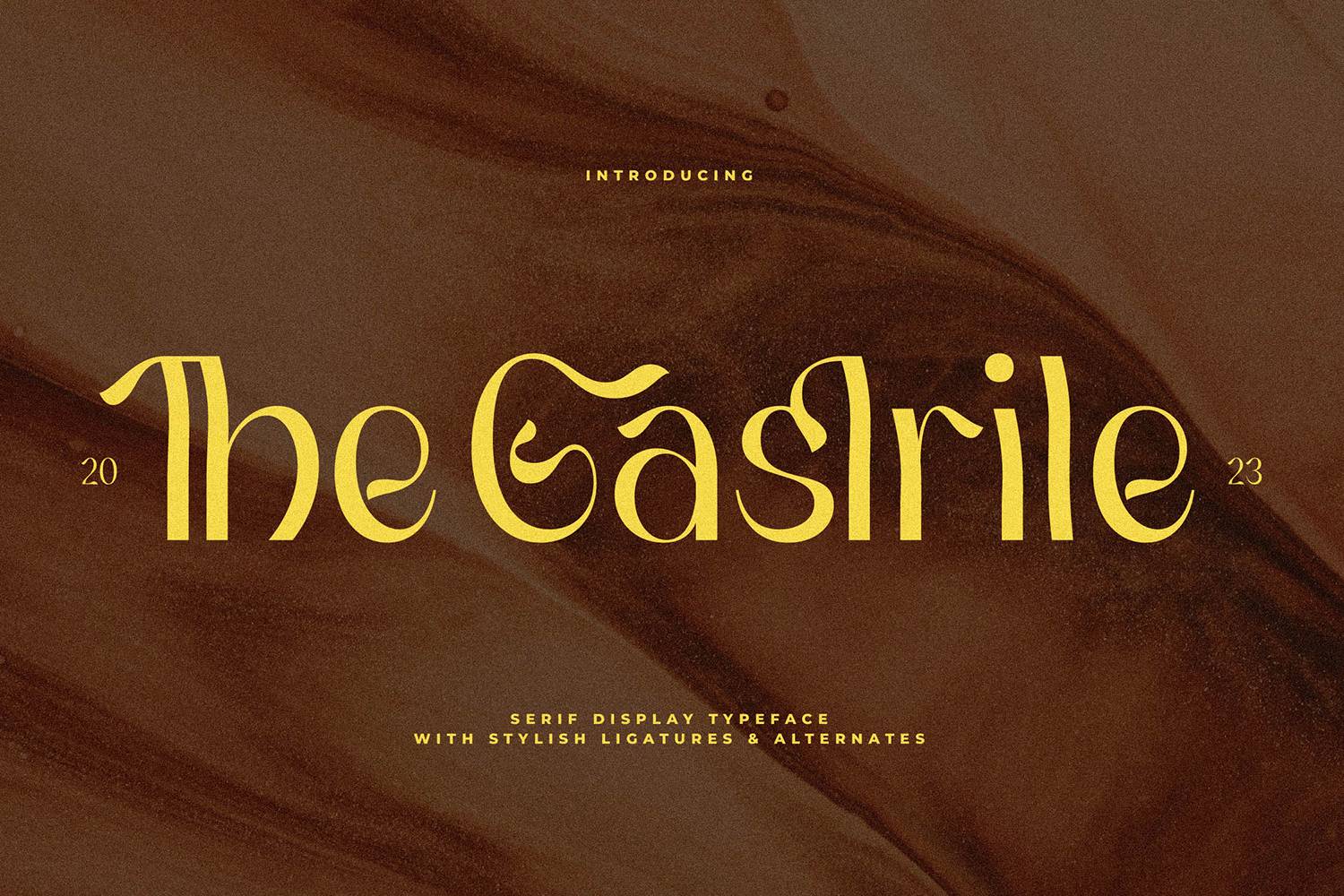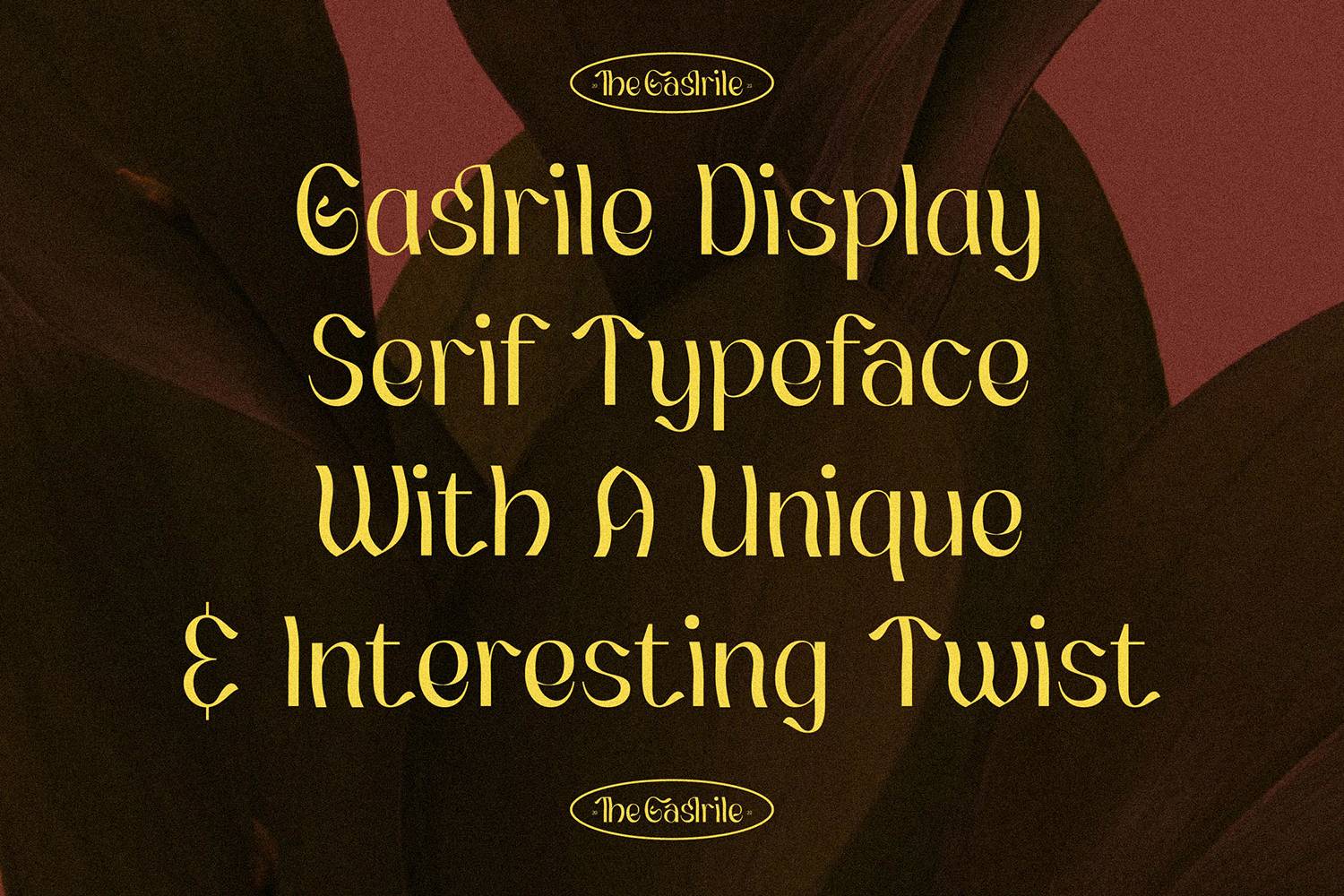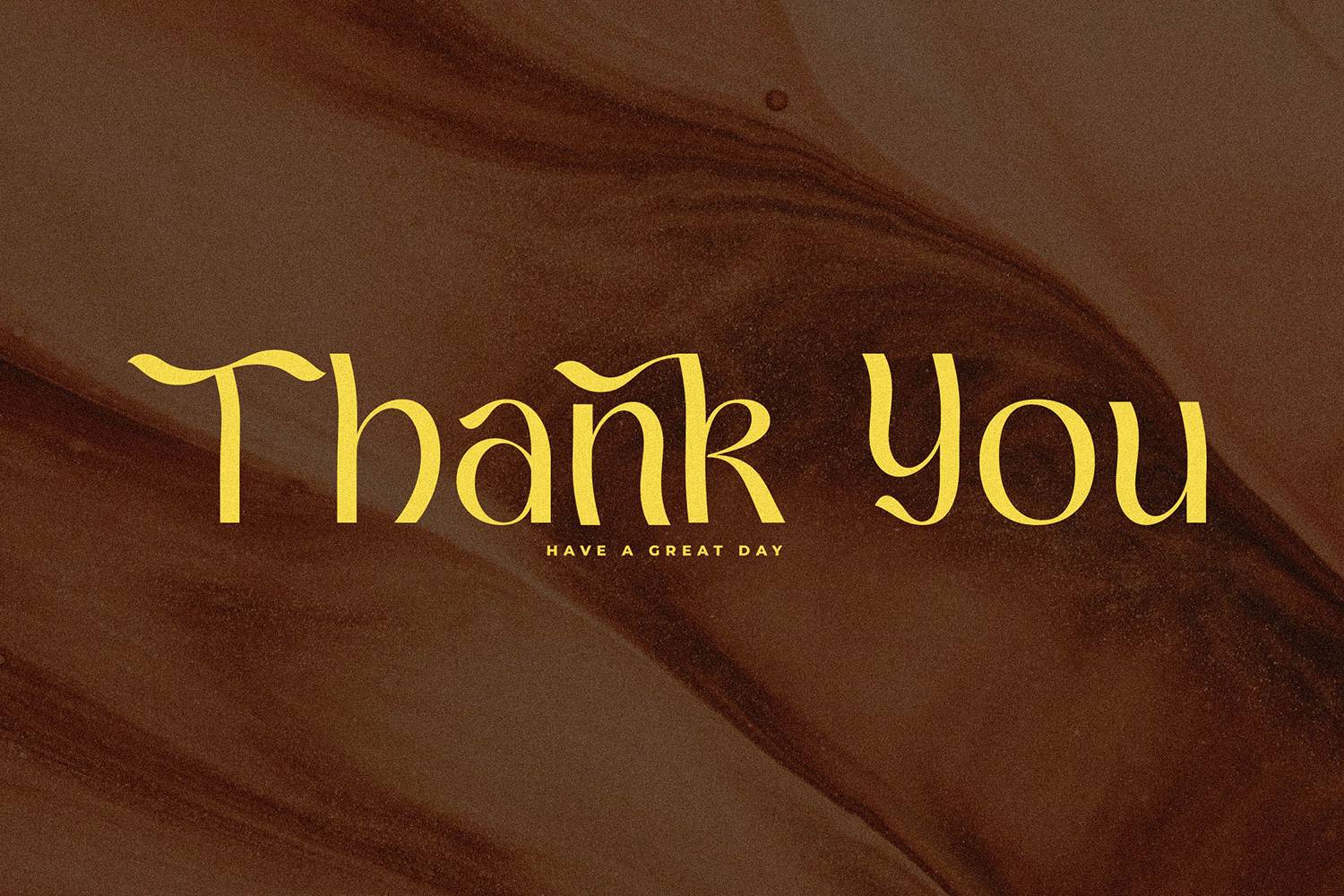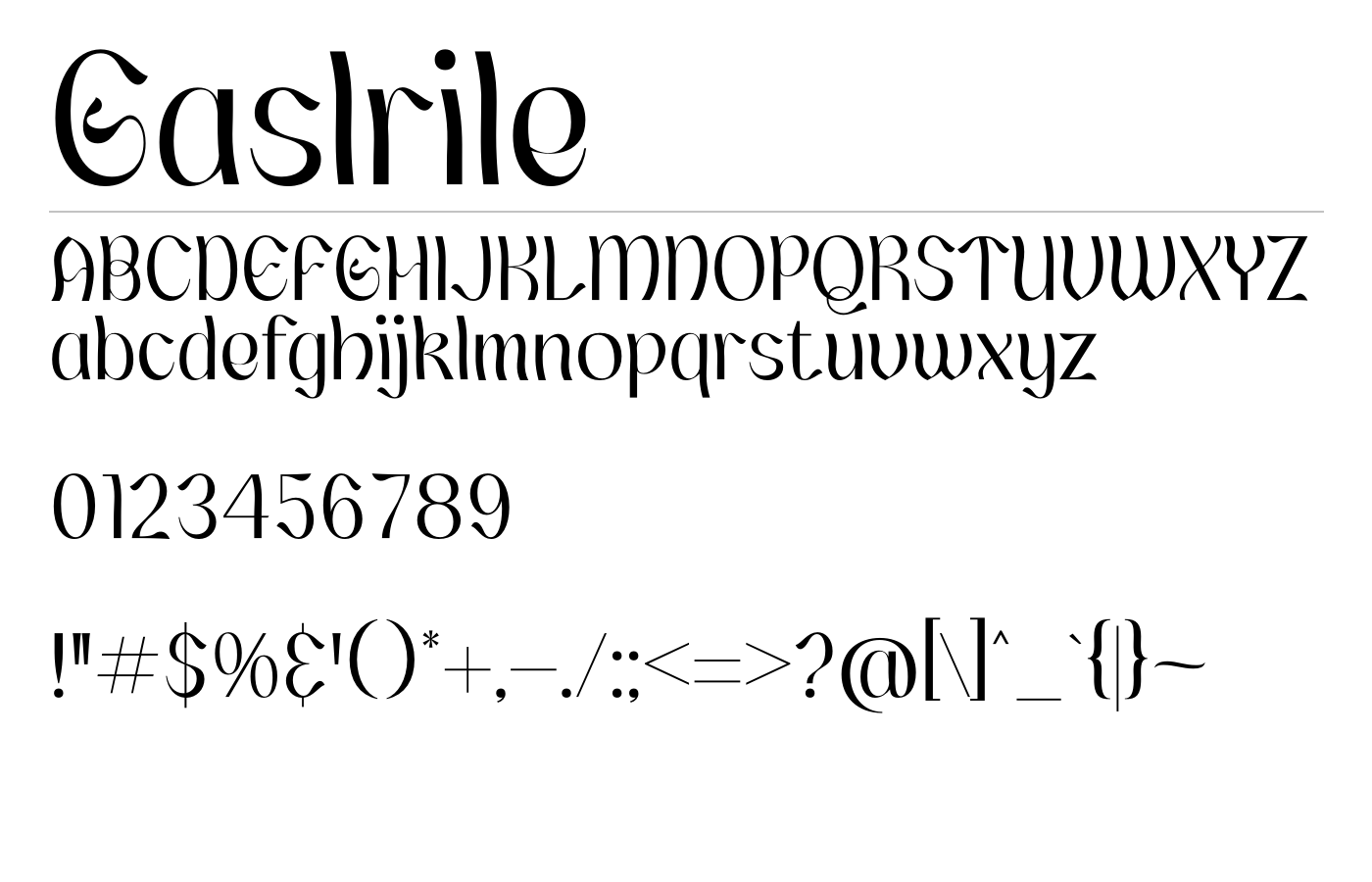
Gaslrile is an elegant serif font with a distinctive blend of modern and vintage charm, featuring thin, bracketed serifs and high contrast between thick and thin strokes. Its tall, slightly condensed letterforms and unique, playful curves give it a refined yet creative personality, making it ideal for branding, editorial design, and stylish headlines where sophistication with a touch of whimsy is desired. This font works beautifully in fashion, luxury, and artistic contexts, providing a memorable and graceful visual impact.
Gaslrile Font
About Gaslrile Font